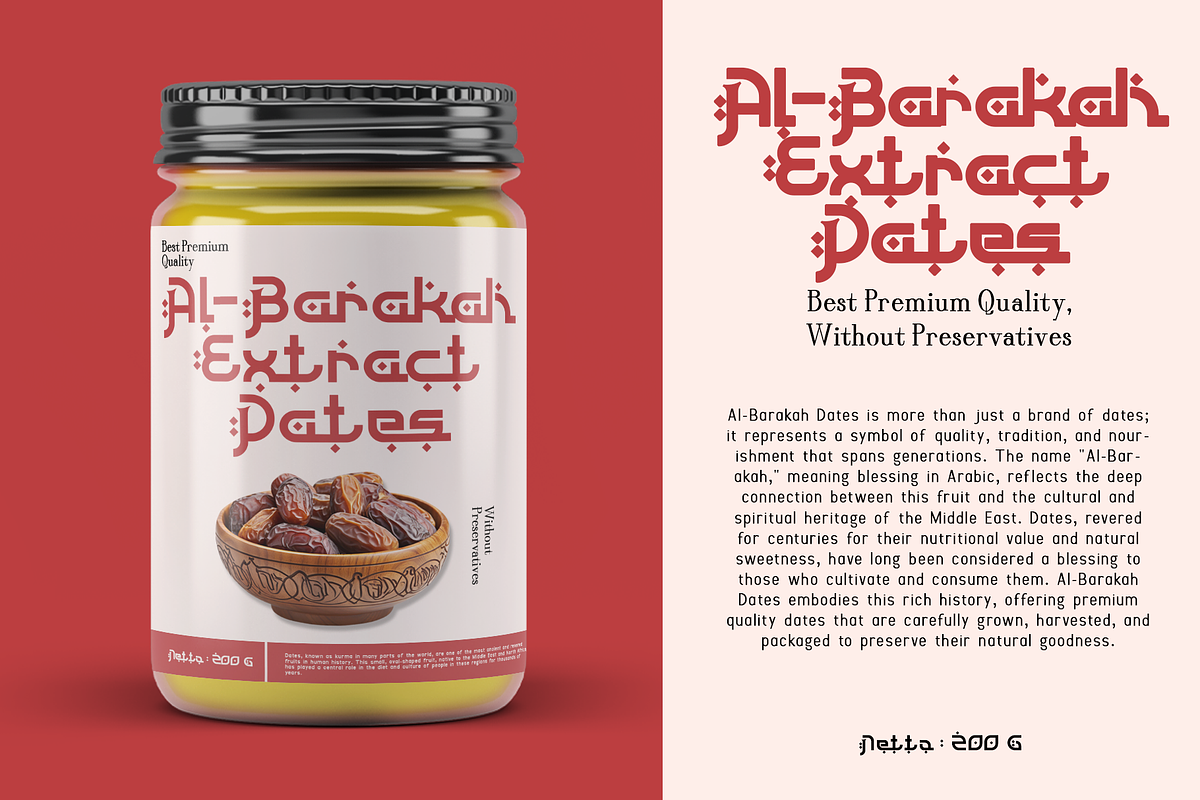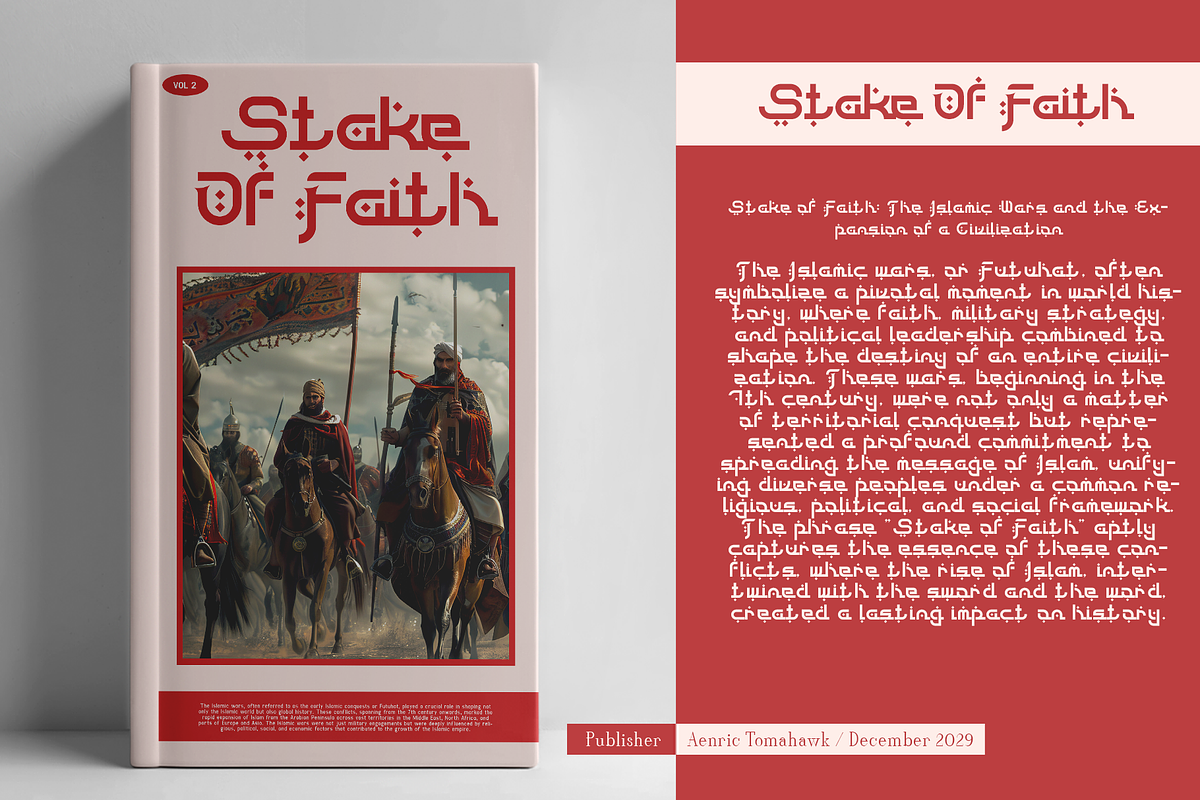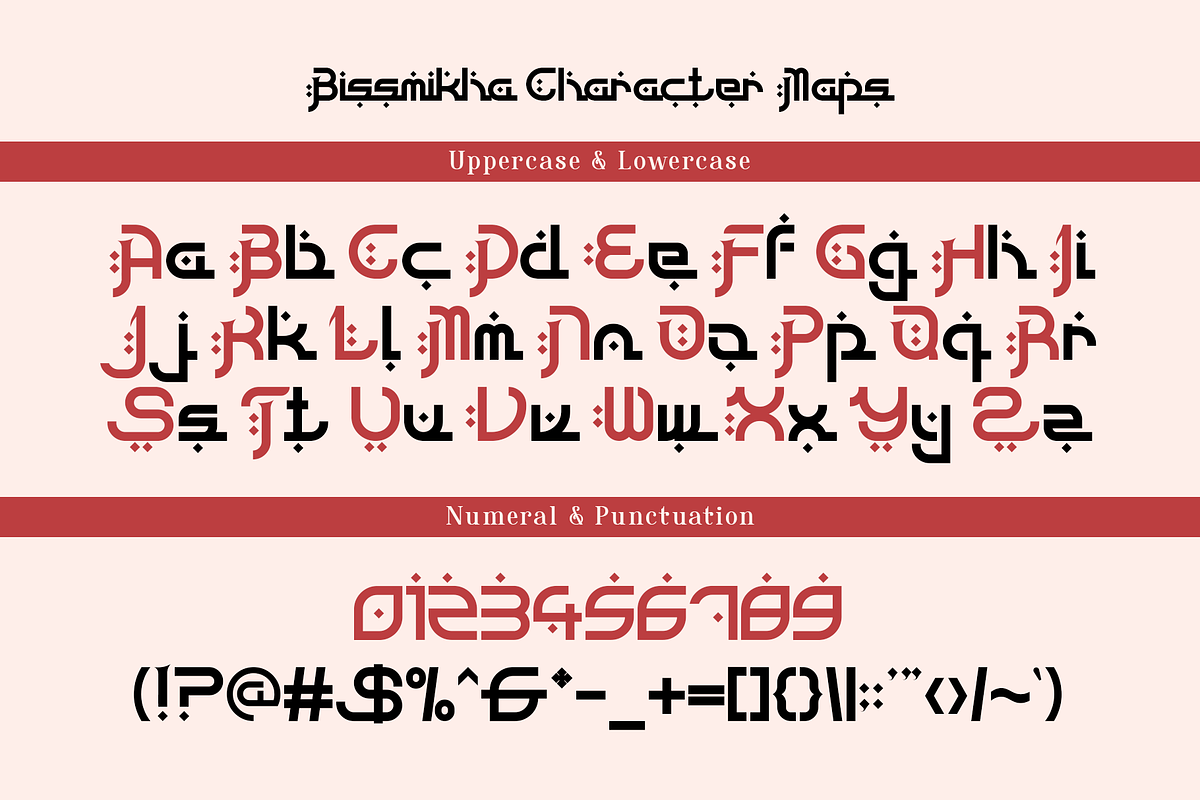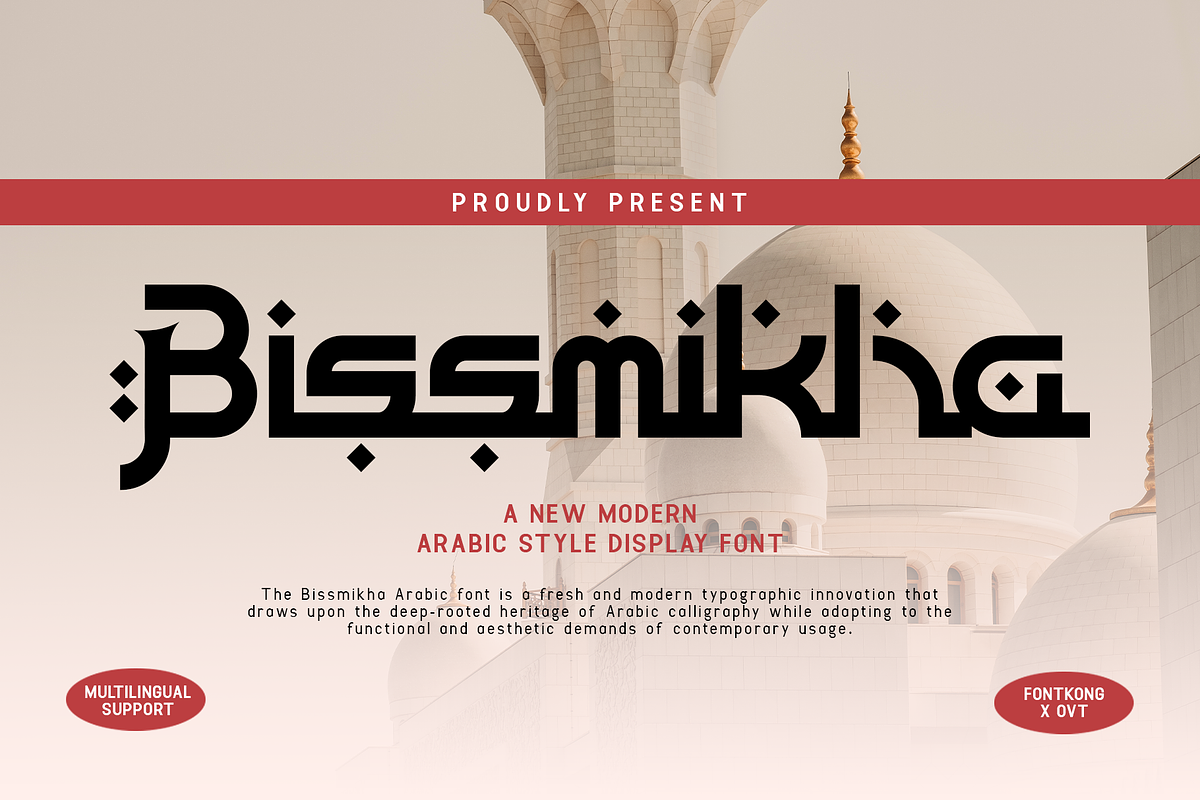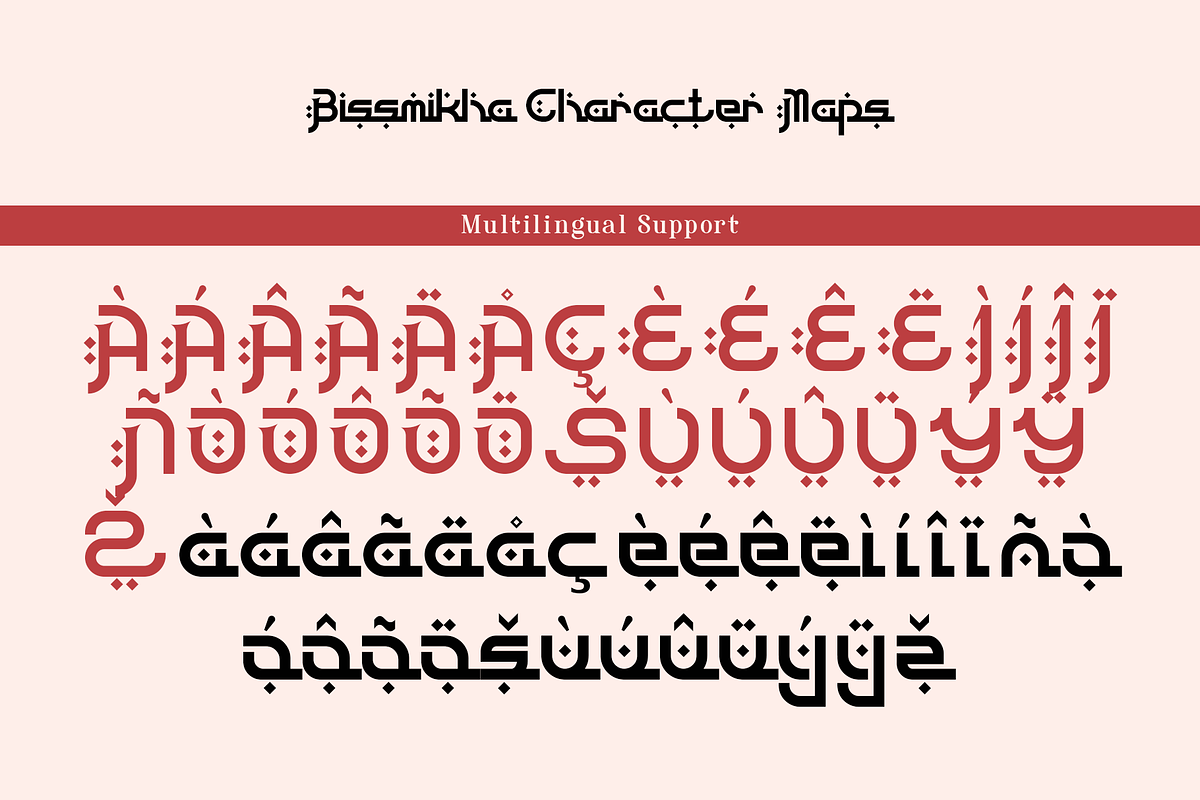
Bissmikha–ModernArabic Style Display
Bissmikha – A New Modern Arabic Style Display Font
Bissmikha is a cutting-edge display font that seamlessly blends modern design with traditional Arabic influences. With bold strokes and intricate curves, this typeface is perfect for projects that demand both elegance and visual impact. Ideal for posters, logos, packaging, and invitations, Bissmikha adds a distinct cultural flair to your creative works.
This font's unique structure makes it suitable for both digital and print media, enhancing readability without compromising style. Whether you’re working on branding projects, event flyers, or bilingual designs, Bissmikha offers a contemporary yet authentic Arabic feel, making it a powerful tool for artistic expression.
Make your designs stand out with Bissmikha a modern Arabic-style display font that reflects both tradition and innovation.